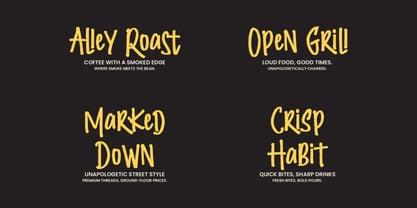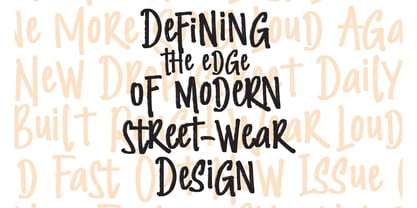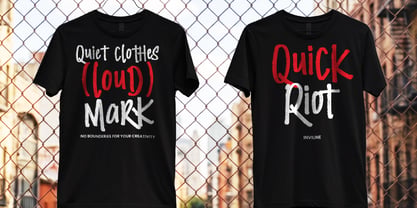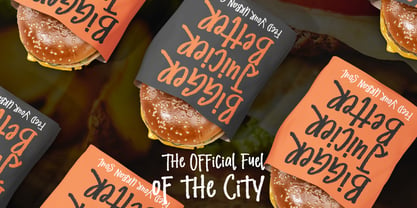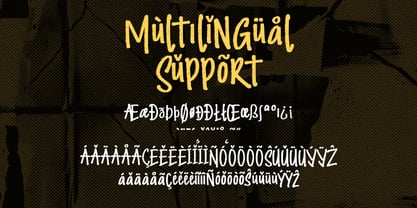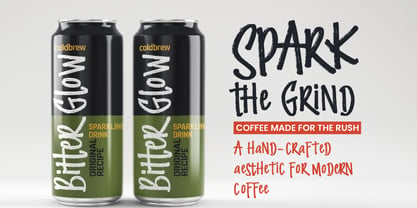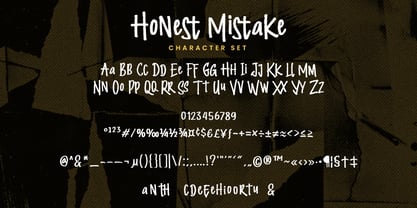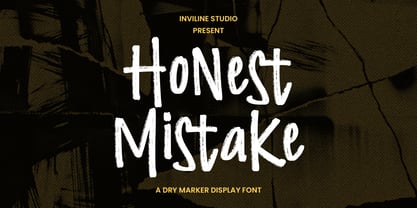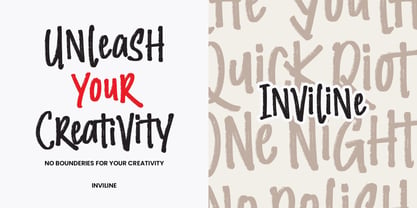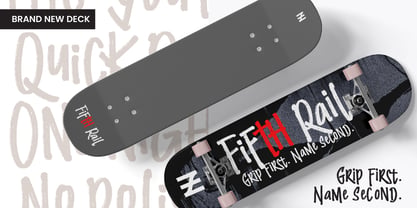
Honest Mistake
von Inviline
Die Schriftfamilie Honest Mistake wurde von Virgiawan Listanto entworfen und von Inviline veröffentlicht. Honest Mistake enthält 1 Stile. Mehr über diese Familie
Honest Mistake is a dry marker display typeface inspired by the vibrant visual language of urban street culture. Its letterforms showcase a unique charm characterized by deliberate imperfections, mimicking the dragged, low-ink quality of a thick marker in motion. The mixed-case rhythm introduces a natural variation in weight and texture across words, while the rough edges convey authenticity rather than a distressed appearance. This typeface is ideal for a variety of applications, including streetwear apparel graphics, brand identity, skate and action sports deck designs, urban beverage and cold brew packaging, punk and alternative music posters, album artwork, urban food branding, and street food packaging. With its distinctive style, Honest Mistake stands out in any creative project, making it a versatile choice for designers looking to capture the essence of urban culture.
Designer: Virgiawan Listanto
Foundry: Inviline